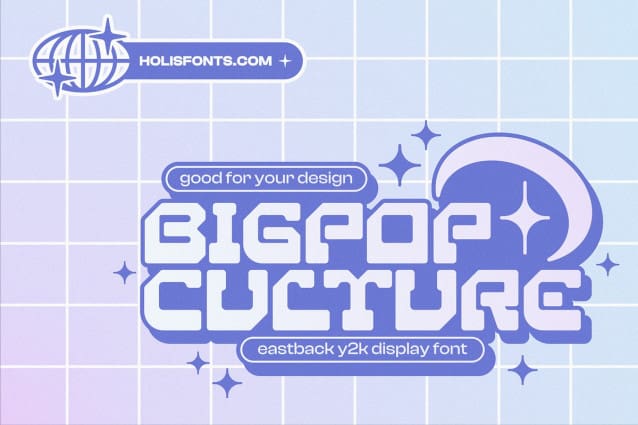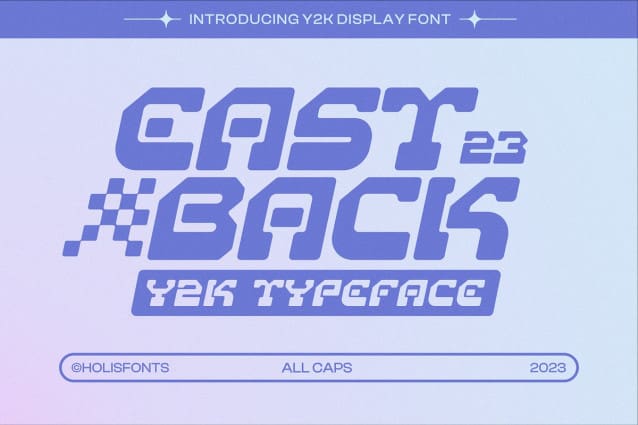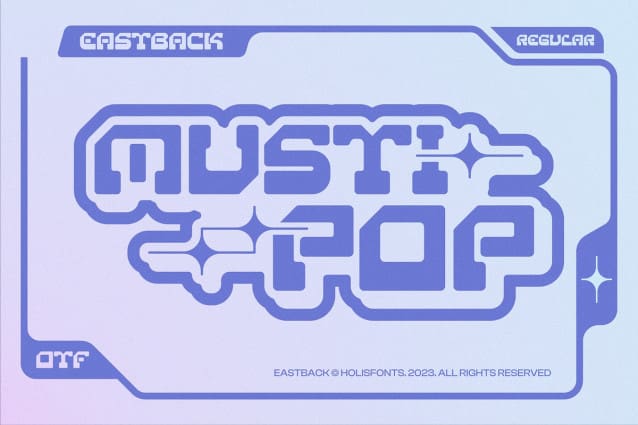
Eastback Y2k Font
Eastback Y2k Font is a y2k all caps font with a futuristic and bold impression, suitable for logo design, social media, posters, text illustrations. This font is intended for designs related to outer space, robots and other modern things.